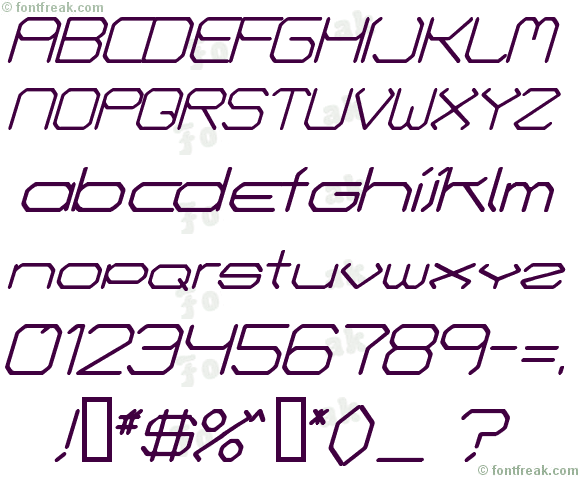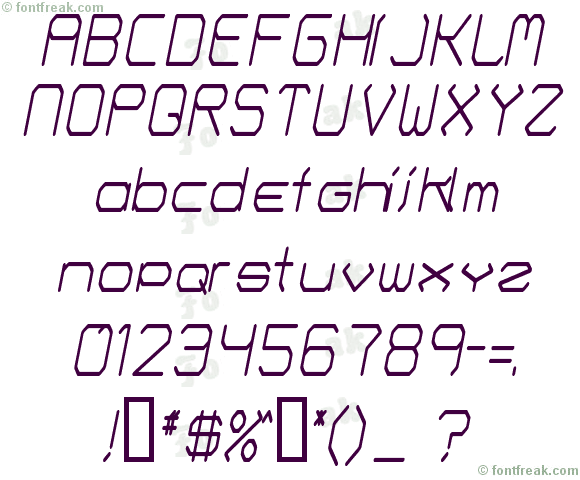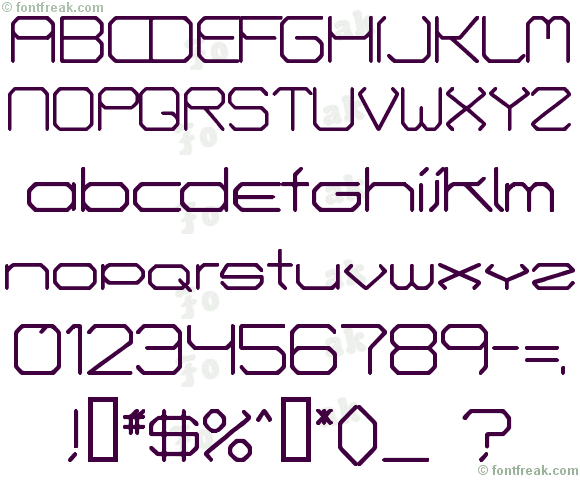
About Fontmaker's Choice
Fontmaker's Choice is a distinctive thin italic typeface that showcases the artistic vision of designer Dieter Schumacher, first released in 1998. This freeware font features a sleek, modern aesthetic, making it an ideal choice for those looking to add a touch of elegance to their projects. Its unique style falls within the sans-serif category, characterized by clean lines and minimalistic design. The stroke weight is consistently thin, providing a refined appearance that maintains clarity even at smaller sizes. The subtle contrast in letterforms adds depth without overwhelming the viewer, while the italic slant imparts a sense of motion and sophistication.
This font is versatile and well-suited for various applications. Graphic designers can use Fontmaker's Choice for creating wedding invitations, where its elegance can elevate the overall design. Additionally, it works beautifully for movie posters, allowing titles to stand out while maintaining an artistic flair. Restaurant menus can benefit from its modern touch, drawing diners' attention to the offerings. Content creators, especially those working on digital platforms, will find this font ideal for website headers and social media graphics, as it adds a contemporary edge to online branding.
What sets Fontmaker's Choice apart is its seamless blend of modernity and elegance. The clean lines and refined slant make it a standout option for anyone seeking to enhance their typography with a font that exudes professionalism and style. Don't miss the chance to get the Fontmaker's Choice font free download, and elevate your design projects today.